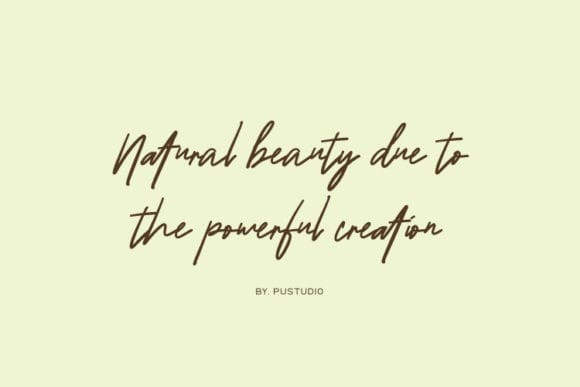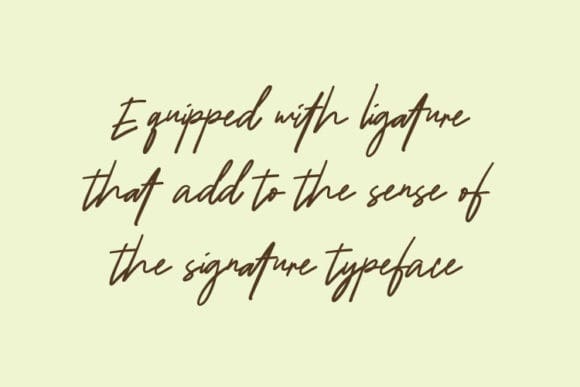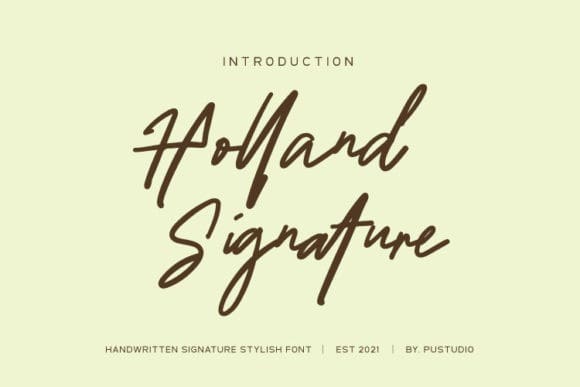
Holland Signature Font
Holland Signature Font is a lovely and delicate script font that exudes elegance and class. This font was particularly crafted for those who need a beautiful and refreshing look to their designs.